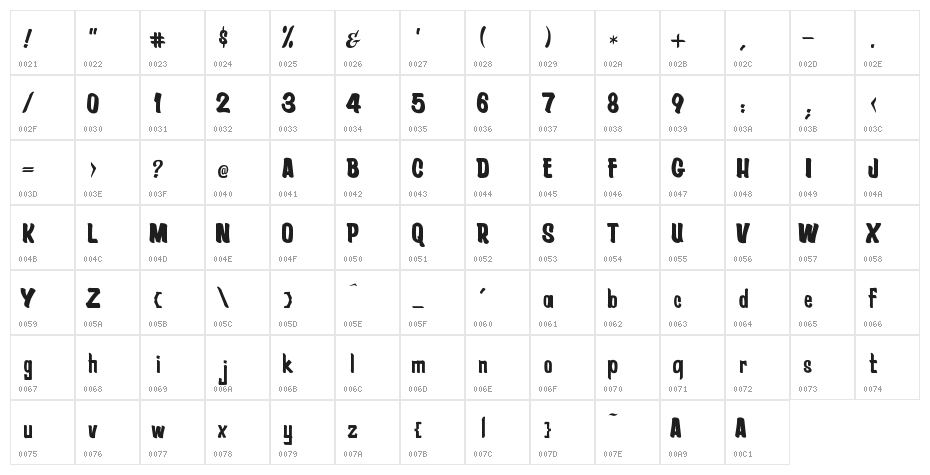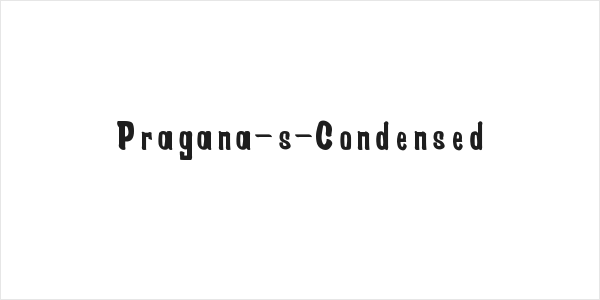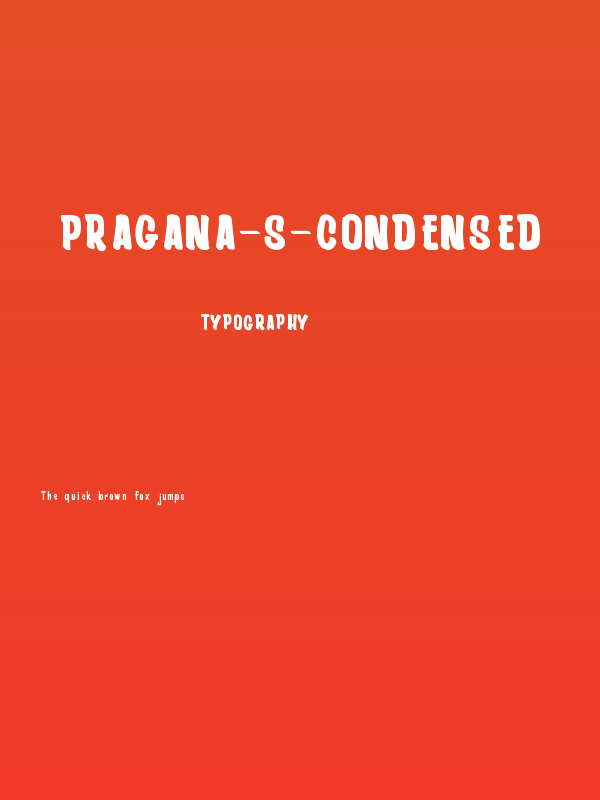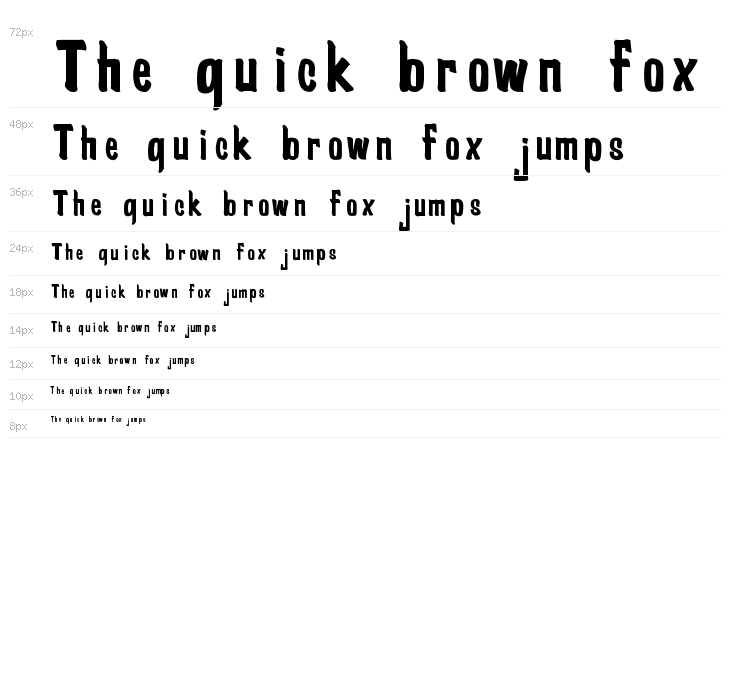
Pragana-s-Condensed Font
Pragana-s-Condensed Description
This font features a bold and condensed style with a strong presence. The uppercase letters are robust and slightly rounded, giving a sense of strength and stability. The lowercase letters maintain the same boldness, with unique characteristics such as the distinctive tails on letters like 'g' and 'y'. The numerals are equally bold, ensuring they stand out prominently. Special characters are designed to match the overall bold aesthetic, making them suitable for attention-grabbing designs. The font's condensed nature allows for efficient use of space while maintaining readability.